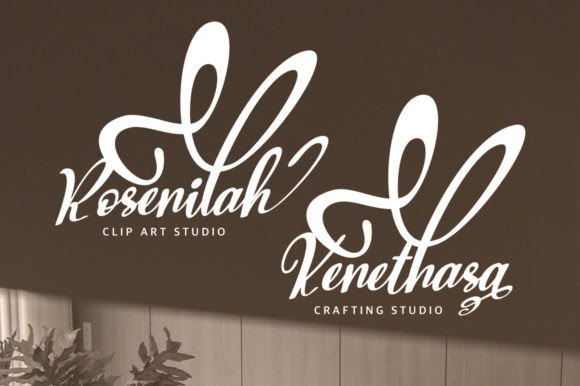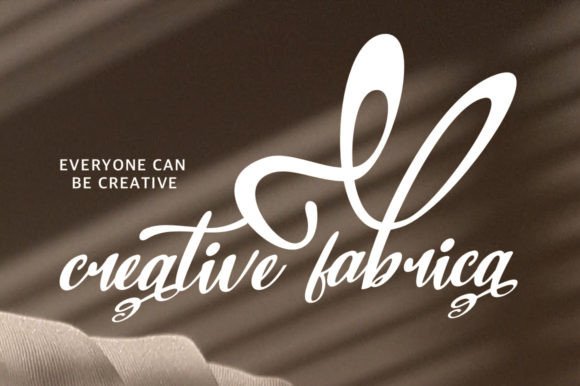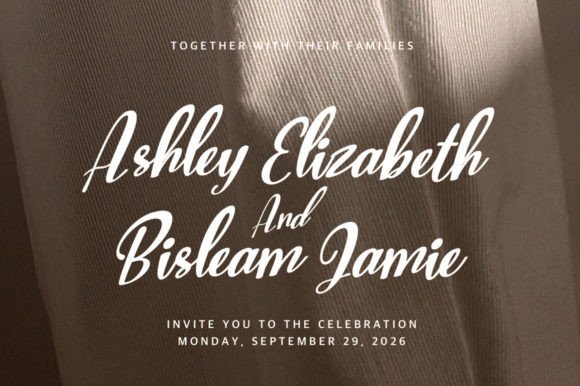
Introduction to Adesina Font
Adesina Script is a lovely script font that features a varying baseline, smooth, modern, and elegant touch.
The font can be used for project ideas such as crafts, creating invitations, event posters, and advertisements, to anything that needs a sense of authenticity .
Key Features of Adesina Font
Why Choose Adesina Font?
Adesina Font offers exceptional quality and versatility, making it a valuable addition to your design toolkit. Whether you’re creating for personal projects or commercial use, Adesina Font delivers professional results.